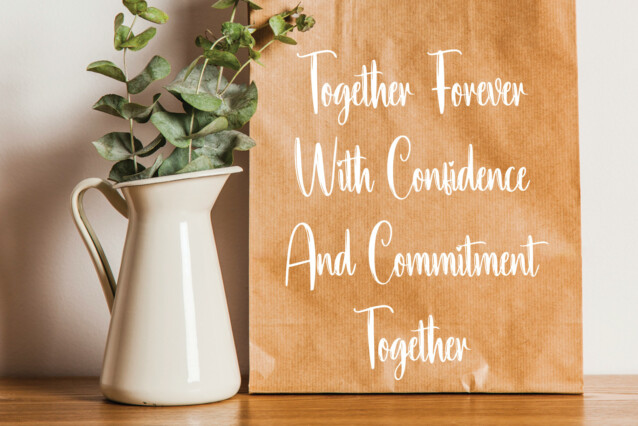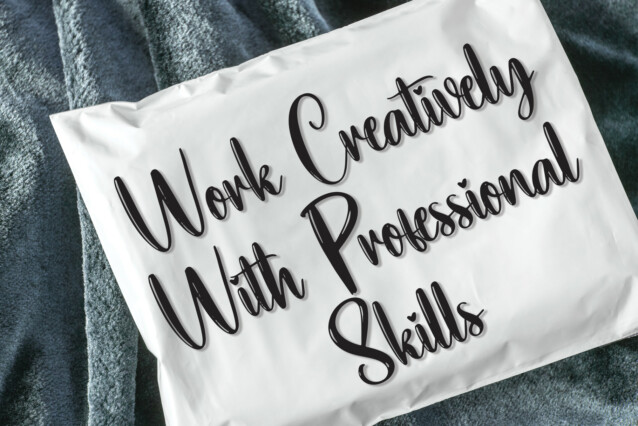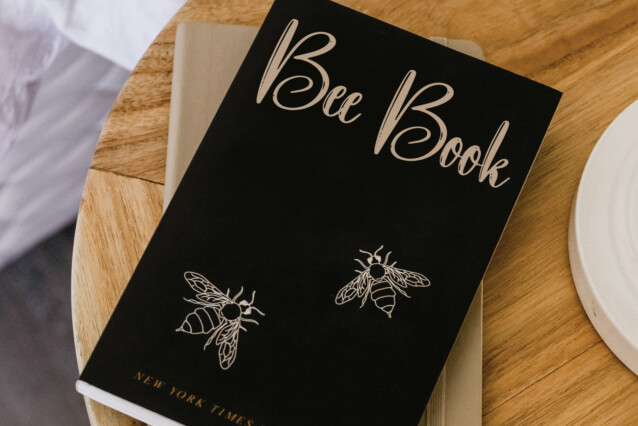
Steady Script Font
Steady Script Font is a modern handwritten typeface. Add it to quotes, branding, logos, magazines, tote bags, t-shirt printing, covers, books, and anything else you have in mind.